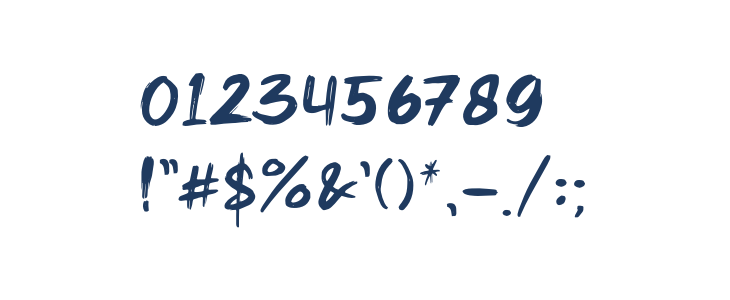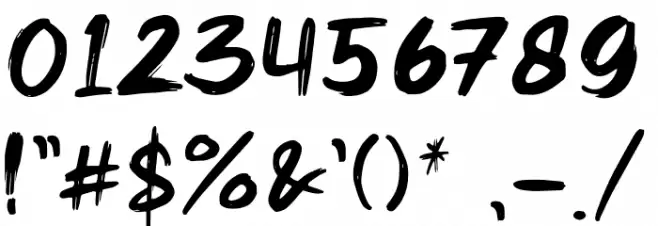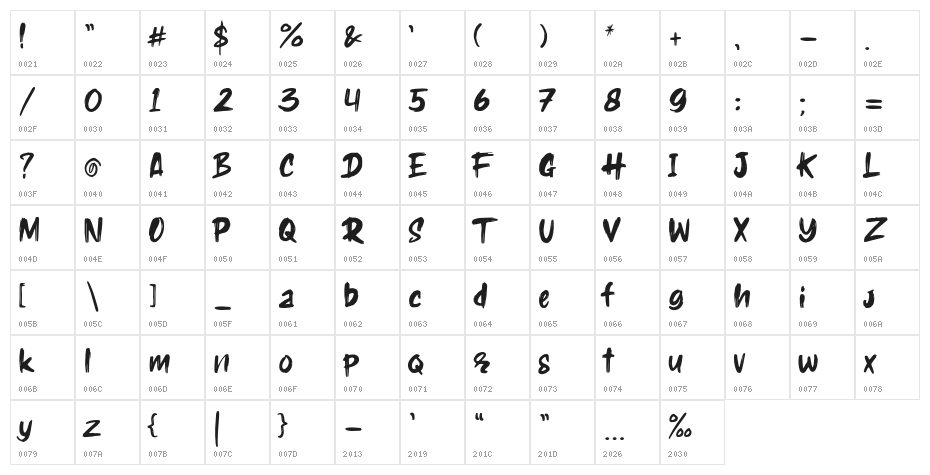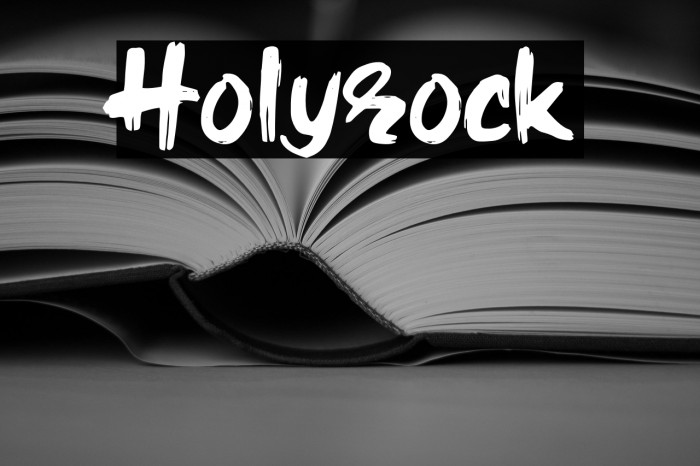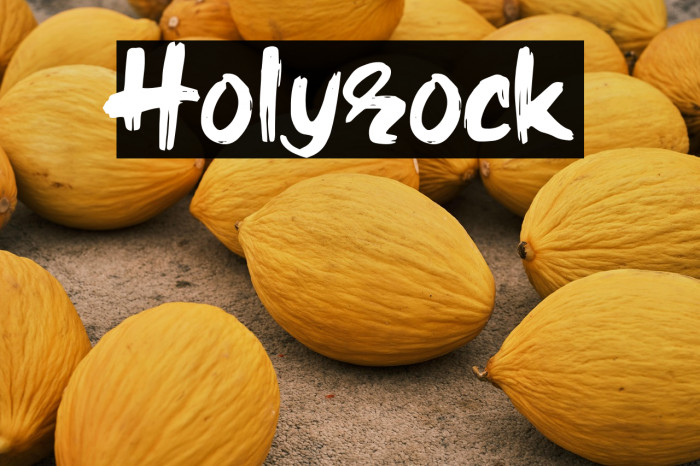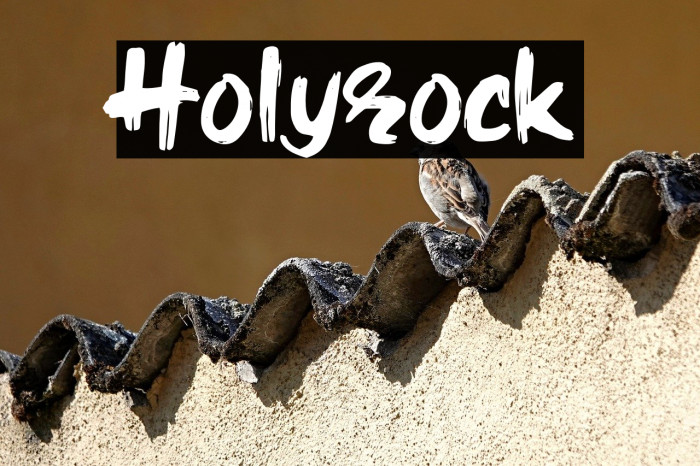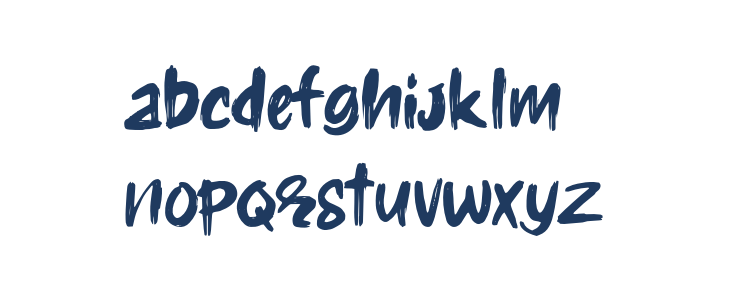
Holyrock Font
Holyrock Description
This font features a bold and dynamic brush style, characterized by its energetic strokes and slightly irregular edges. The letters have a hand-painted appearance, giving them a raw and expressive feel. The uppercase and lowercase letters are well-balanced, maintaining a consistent flow throughout. Numbers and special characters are crafted with the same attention to detail, ensuring a cohesive look. The font's overall aesthetic is both modern and artistic, making it suitable for projects that require a touch of creativity and flair.
Overall StyleModern, Artistic
Proposed ProjectsIdeal for posters, album covers, branding projects, and any design that benefits from a bold, artistic touch.